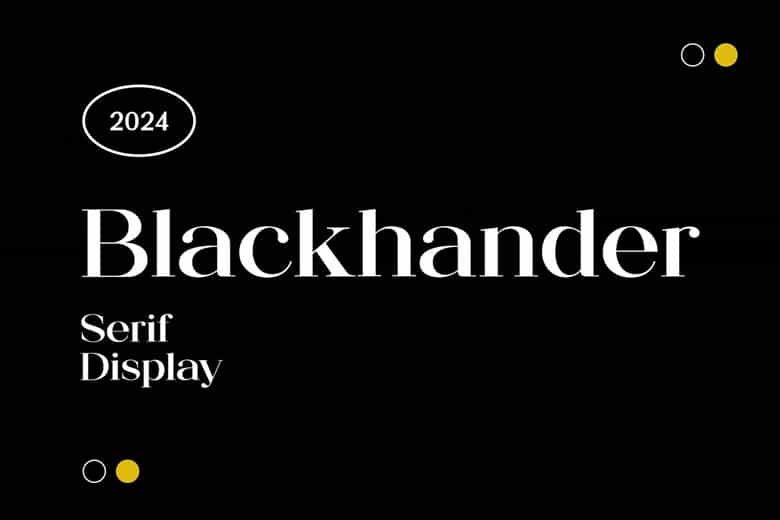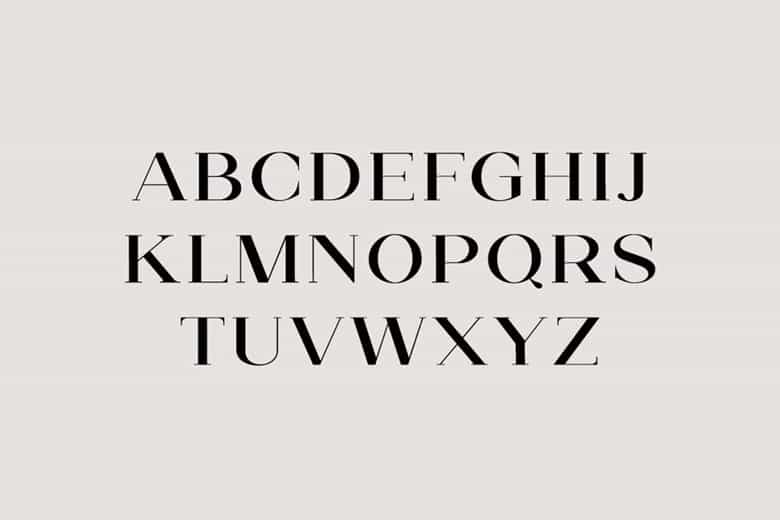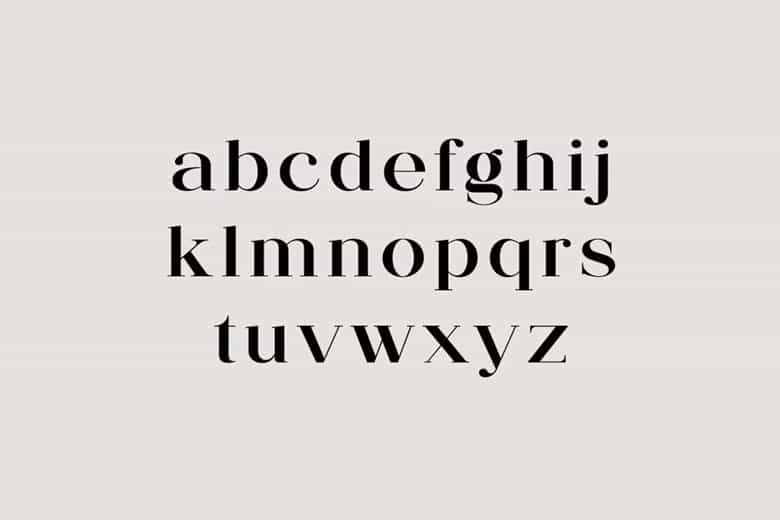
Blackhander is a new modern display serif font. It’s looks classy, elegant and stylish that it can be easily recommended. This font is well suitable for different kinds of works, including logos, letterheads, wedding works, quotes, magazine or book covers, website headers, brandings, and other purposes.